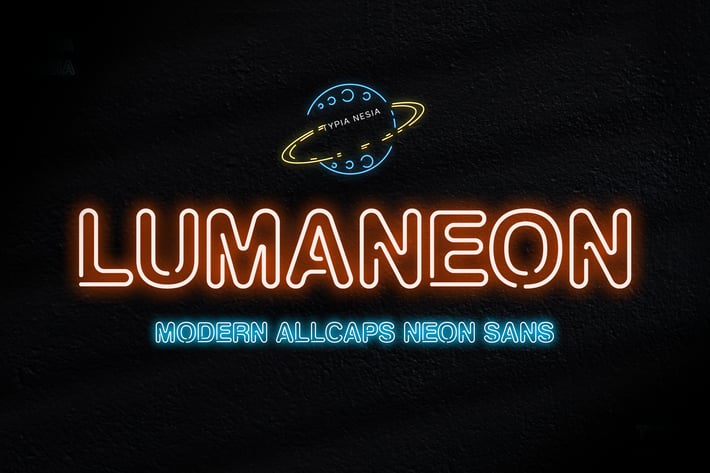
Lumaneon - Retro Neon Sign Sans Serif Font
Lumaneon Display Font is perfect for your up coming projects. Such as logo branding, editorial design, stationery design, sport design, 80s retro design, game industry, music poster, blog design, modern advertising design, card invitation, art quote, home decor, book/cover title, special events and any more.